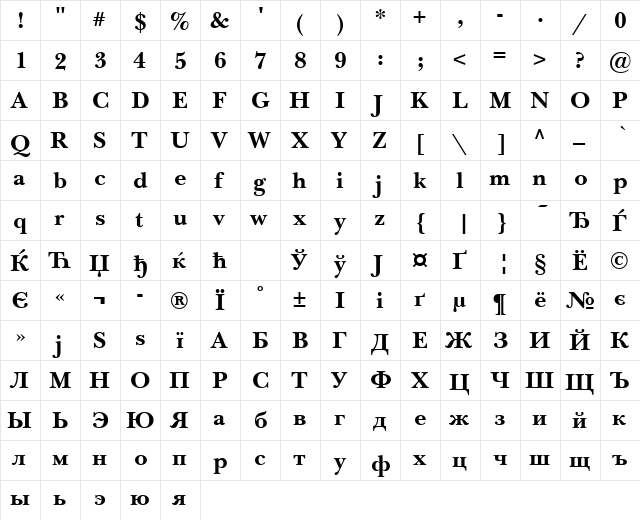
NewBaskervilleCTT Bold
Design Context for NewBaskervilleCTT Typeface
NewBaskervilleCTT takes a measured approach to typography — its balanced proportions and neutral character make it a reliable workhorse for both digital and print work. The heavy weight commands attention and anchors typographic hierarchies.